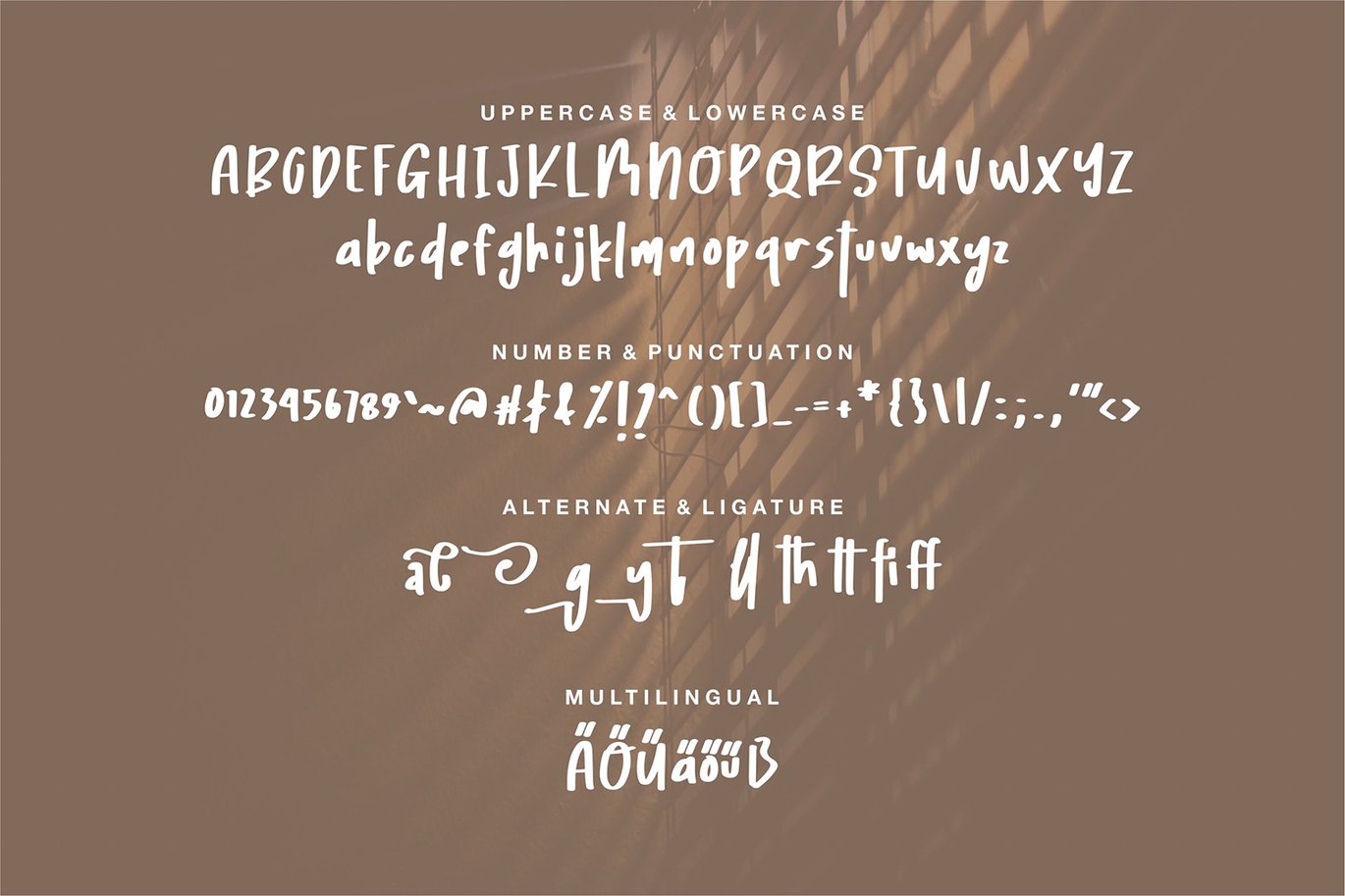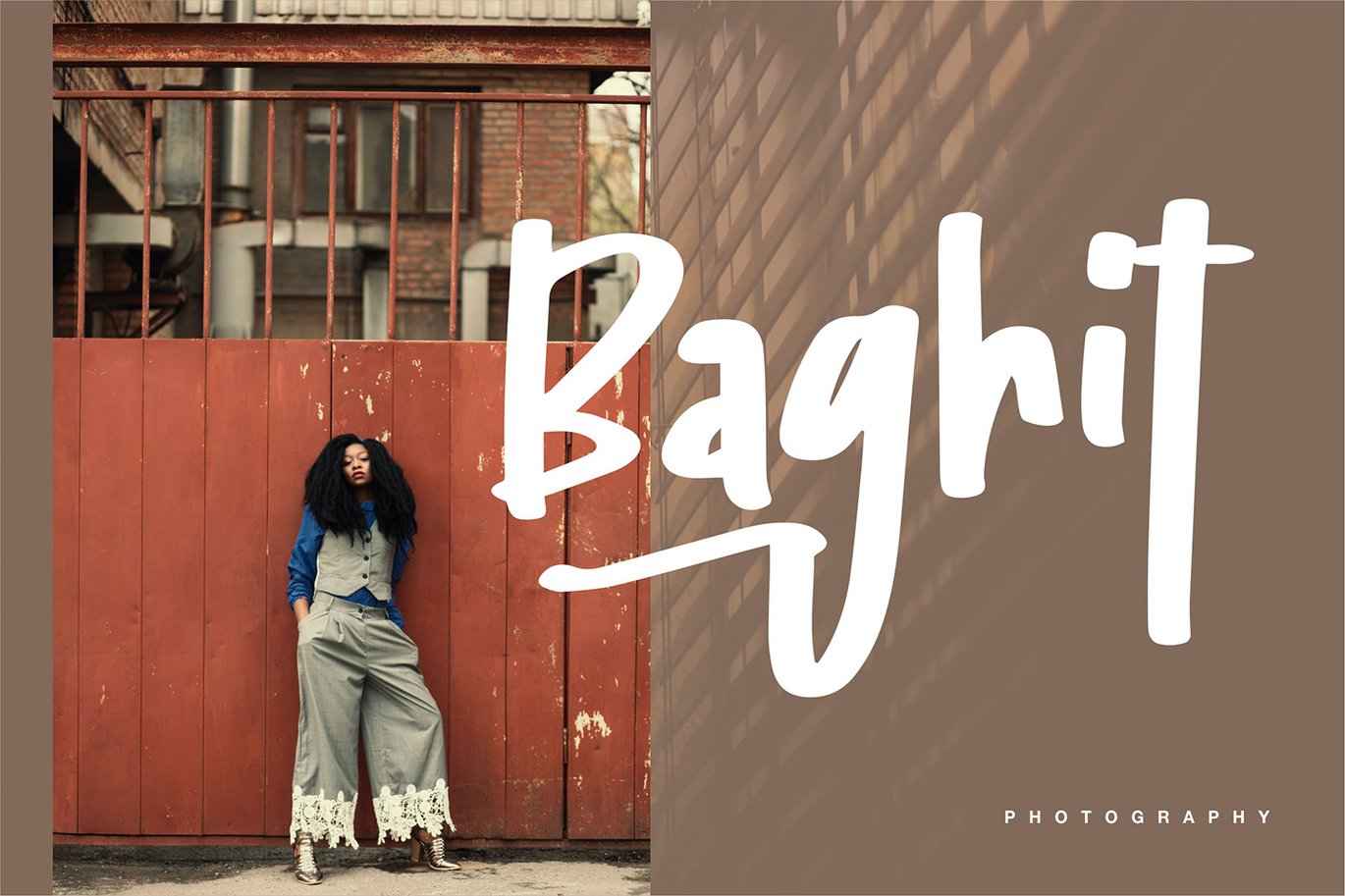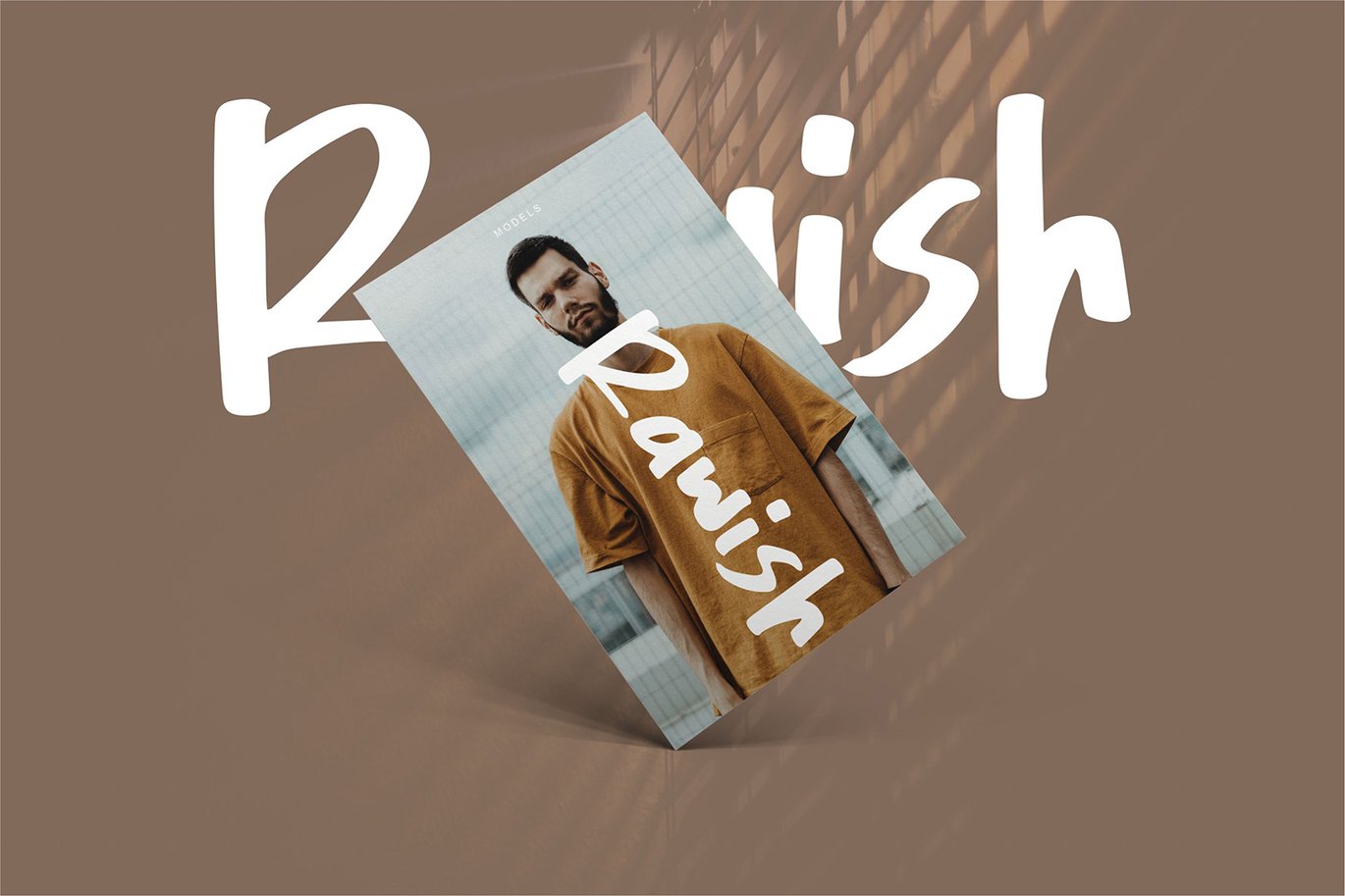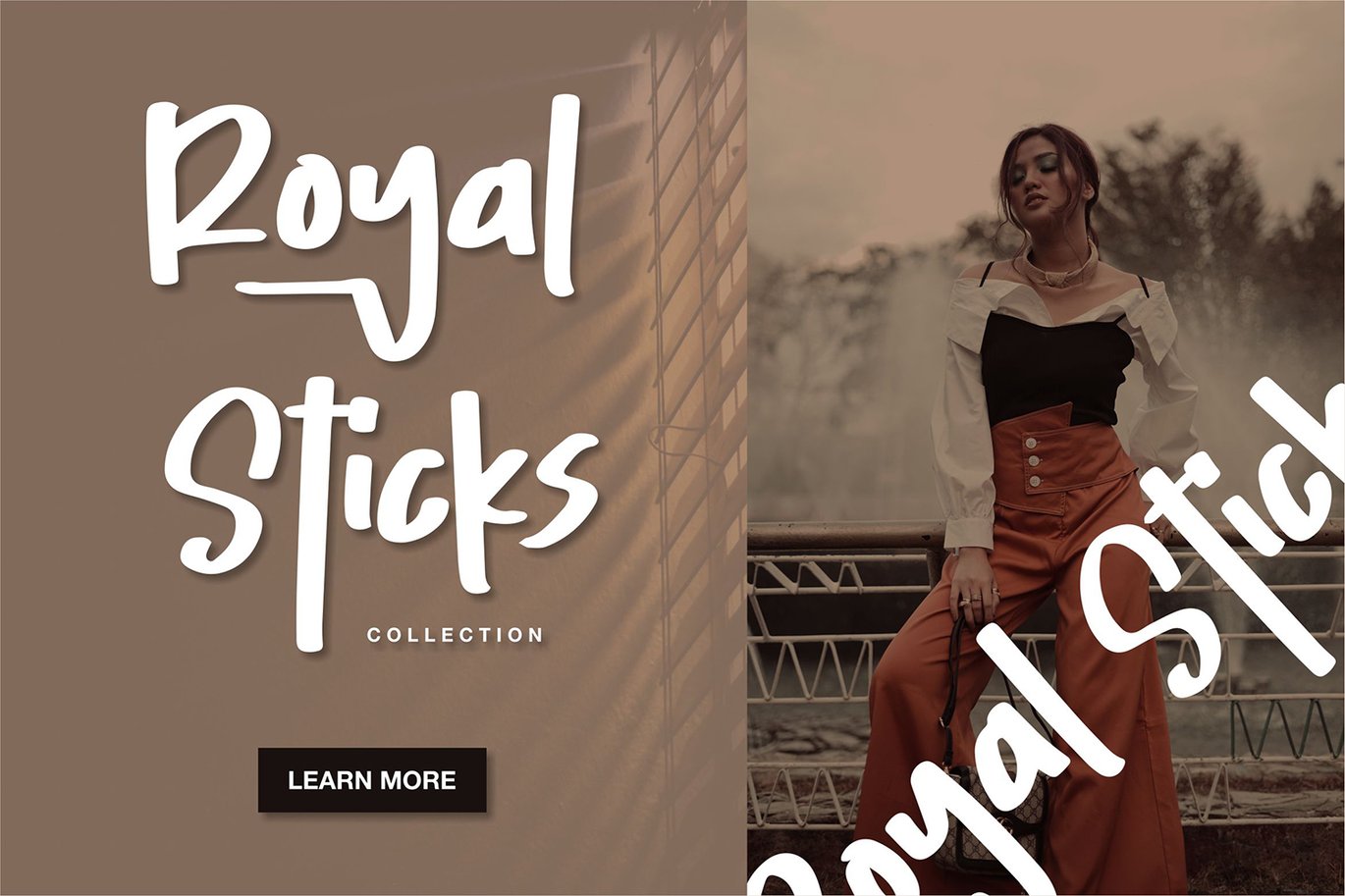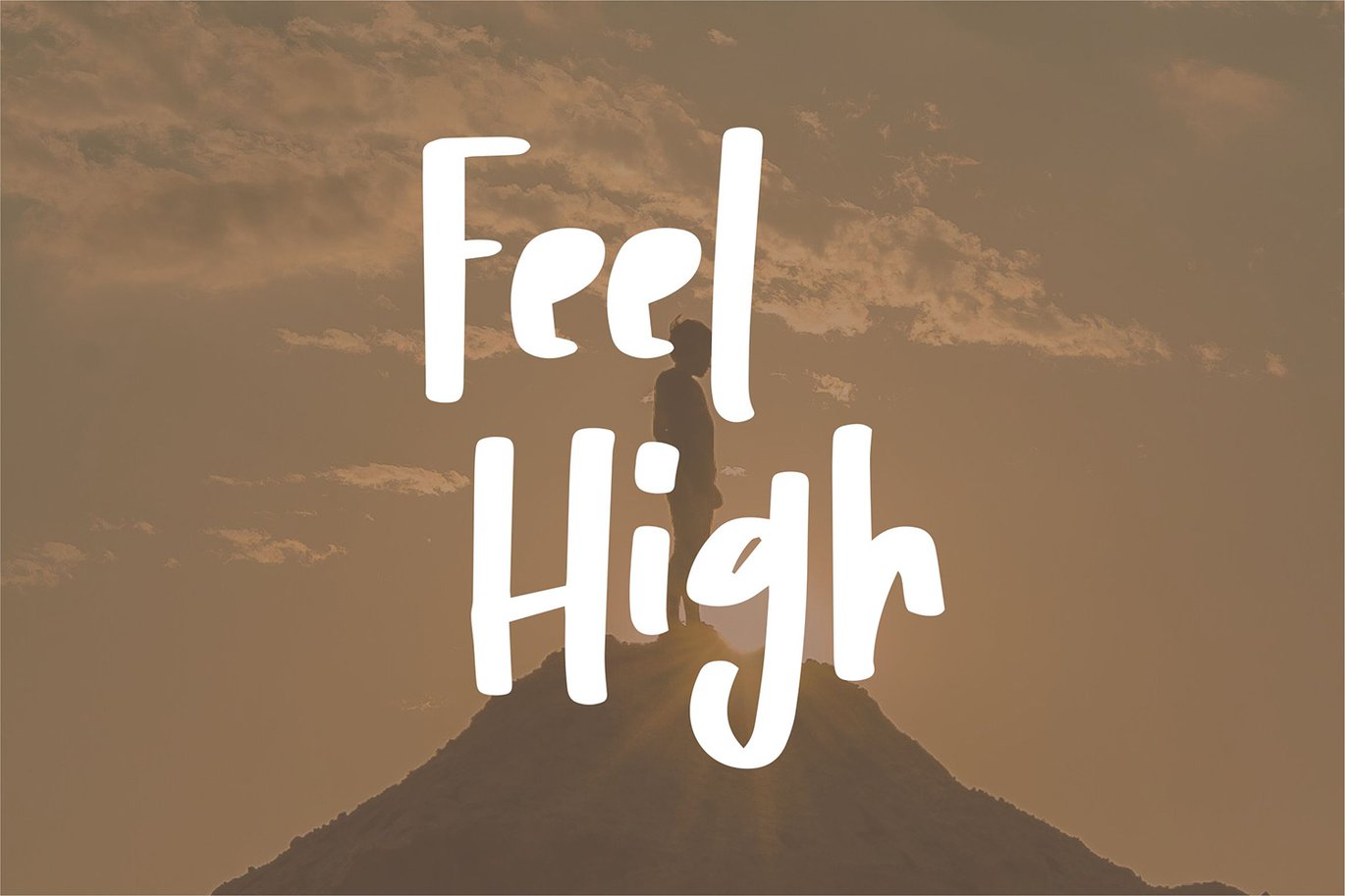
Billie | Handdraw Font
Billie | Handdraw Font with a calligraphy style, So beautiful on invitation like greeting cards, branding materials, business cards, quotes, posters, and more!